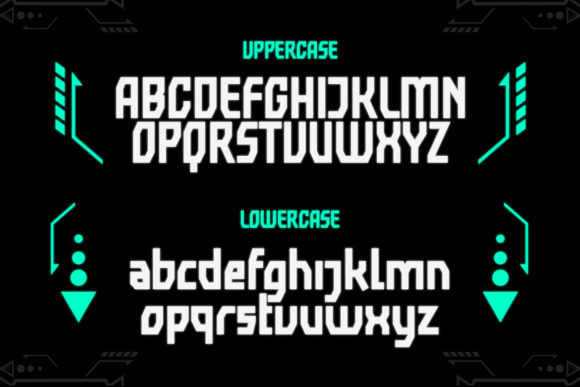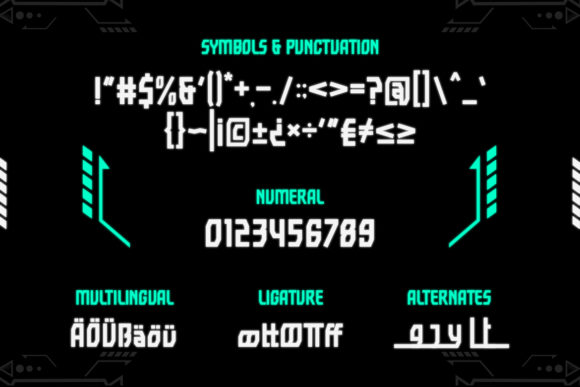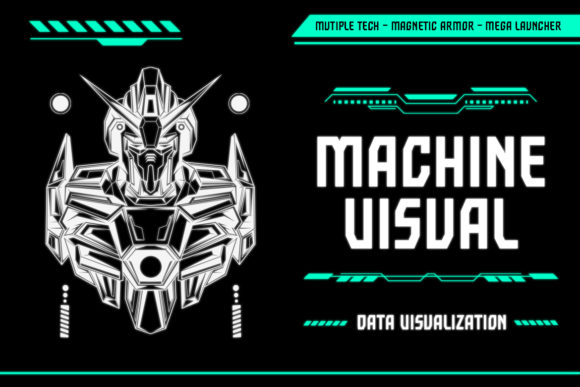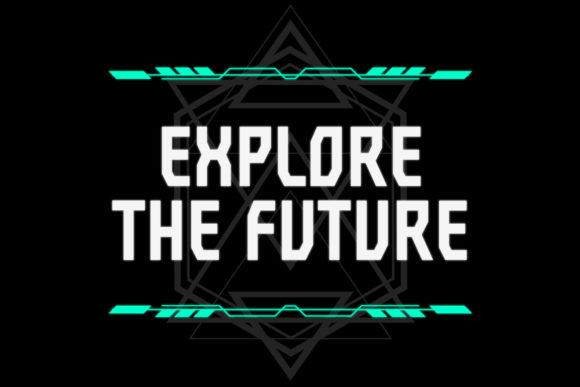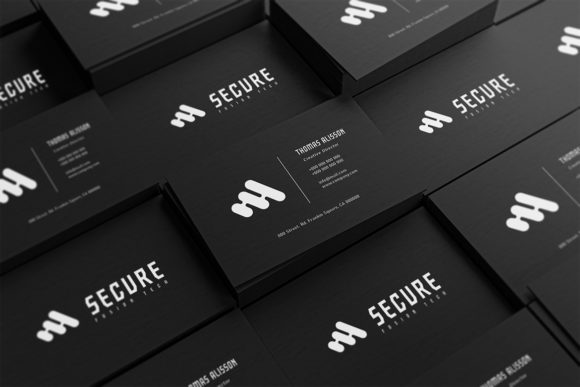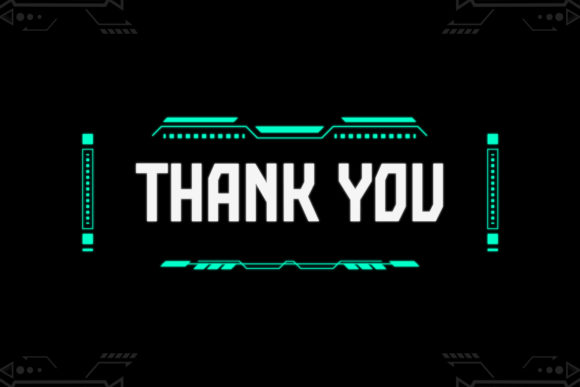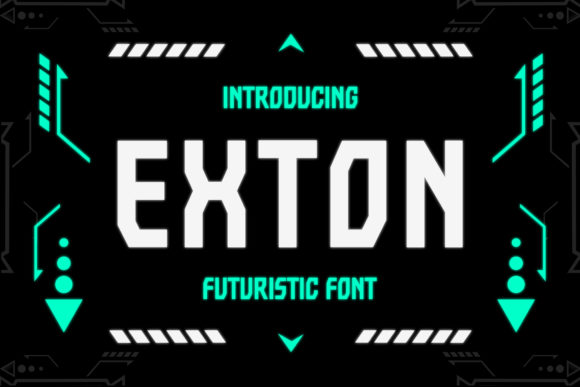
Introducing Exton Font: The Futuristic Display Font for Bold Designs
In the world of typography, fonts play a crucial role in conveying the tone and personality of a design. For designers and crafters looking to add a touch of futurism and innovation to their work, the Exton Font is an excellent choice. This sharp, angular, and futuristic display font is designed to give your designs a robot-like style that’s sure to grab attention.
What is Exton Font?
Exton Font is a display font designed to make a statement. Its unique, robotic style is characterized by sharp lines, angular shapes, and a futuristic aesthetic that’s perfect for designs that require a bold and edgy look. Whether you’re working on a branding project, a website design, or a craft project, Exton Font is an excellent choice for adding a touch of innovation and sophistication.
Key Features of Exton Font
- Sharp and Angular Design: Exton Font features a sharp, angular design that’s reminiscent of robotic fonts.
- Futuristic Aesthetic: The font’s futuristic style makes it perfect for designs that require a bold and edgy look.
- Display Font: Exton Font is designed as a display font, making it ideal for headlines, titles, and other design elements that require a bold and attention-grabbing style.
- Versatile: Despite its robotic style, Exton Font is surprisingly versatile and can be used for a wide range of design projects.
Use Cases for Exton Font
Exton Font is a versatile font that can be used for a wide range of design projects. Here are some use cases where Exton Font can make a significant impact:
- Branding and Logo Design: Use Exton Font to create bold and attention-grabbing logos and branding materials.
- Website Design: Add a touch of futurism to your website design with Exton Font, perfect for headlines, titles, and other design elements.
- Print Design: Use Exton Font for print design projects such as brochures, posters, and business cards.
- Crafting and DIY Projects: Exton Font can also be used for crafting and DIY projects, such as making signs, banners, and other decorative items.
Tips for Using Exton Font
To get the most out of Exton Font, here are some tips to keep in mind:
- Use it sparingly: Exton Font is a bold font, so use it sparingly to avoid overwhelming your design.
- Pair it with a neutral font: Pair Exton Font with a neutral font to create contrast and add visual interest to your design.
- Experiment with colors: Exton Font looks great in bold colors, so experiment with different colors to find the one that works best for your design.
Exton Font is a sharp, angular, and futuristic display font that’s perfect for designers and crafters looking to add a touch of innovation and sophistication to their work. With its unique robotic style and versatile design, Exton Font is an excellent choice for a wide range of design projects. So why not give it a try and explore its endless possibilities?